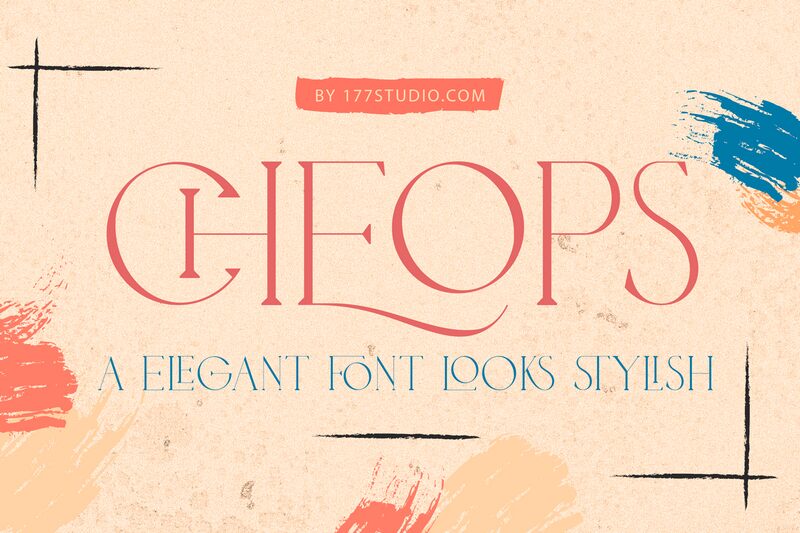
Cheops Elegant is a light serif font created by 177Studio.com. With its elegant style, Cheops Elegant is perfect for projects requiring a sophisticated and modern look, such as wedding invitations, branding designs, or luxury packaging.